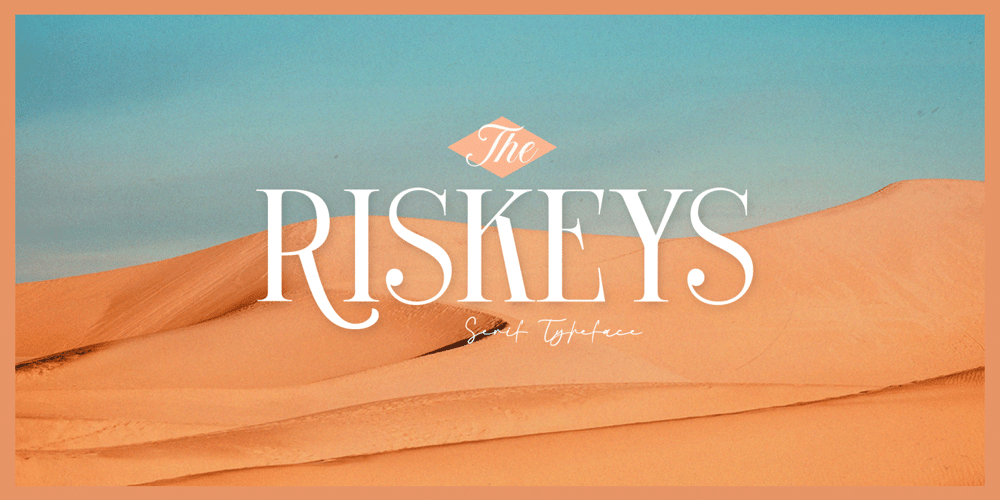
The Riskeys Font Family was designed by Hendry Juanda and published by Letterhend. The Riskeys contains 1 styles and family package options. The Riskeys is a stylish and sophisticated modern serif font. This typeface has can be used for modern theme or vintage looks with ligatures & alternates. Very suitable for logo, headline, tittle, and the other various formal forms such as invitations, labels, logos, magazines, books, greeting / wedding cards, packaging, fashion, make up, stationery, novels, labels or any type of advertising purpose.Features : uppercase and lowercase numbers and punctuation multilingual ligatures alternates PUA encoded We highly recommend using a program that supports OpenType features and Glyphs panels like many of Adobe apps and Corel Draw, so you can see and access all Glyph variations.